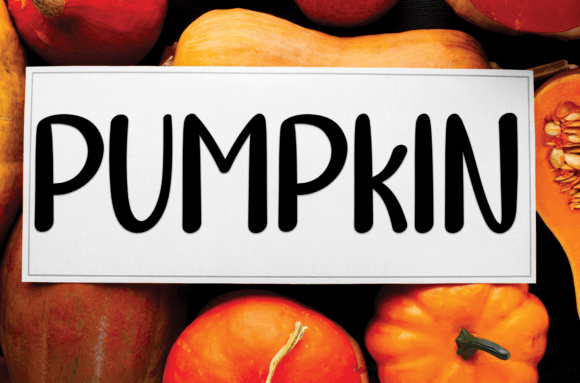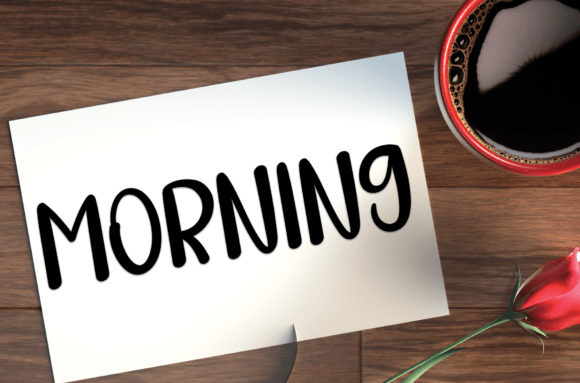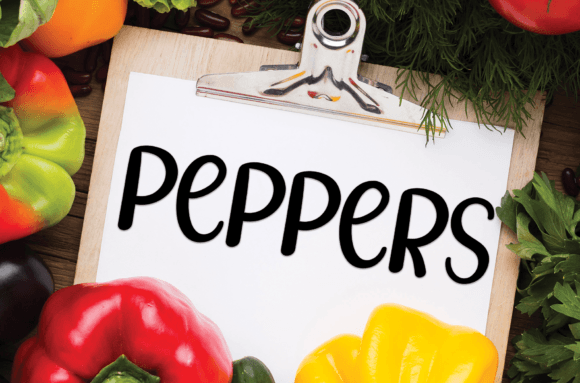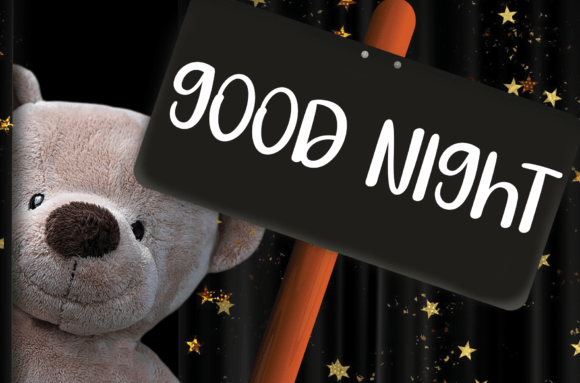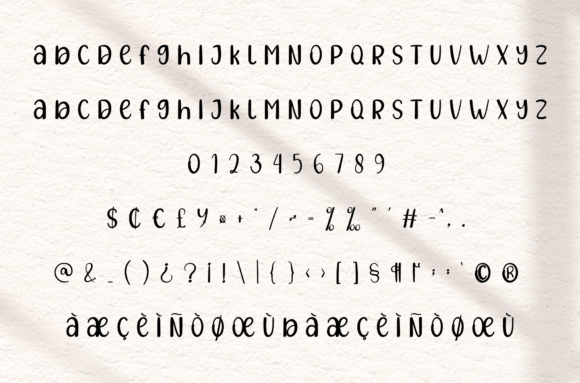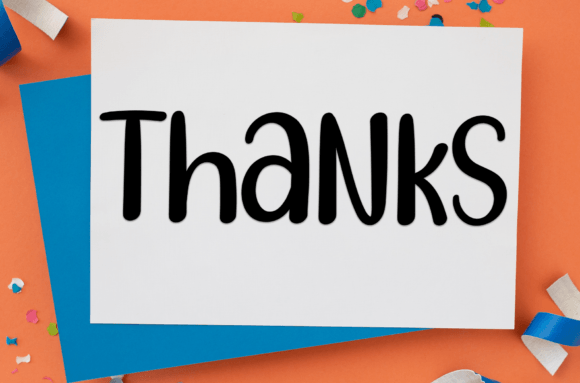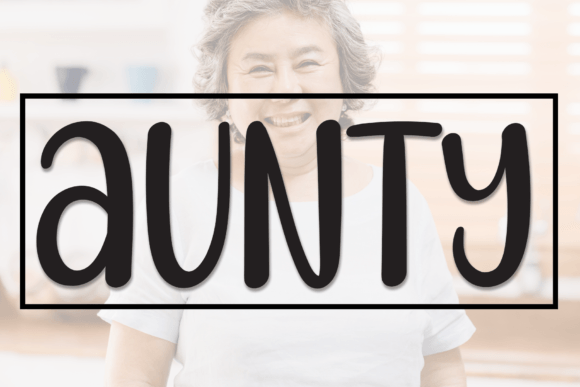
Aunty Font: The Sweet and Friendly Handwritten Font for Your Design Needs
Are you looking for a font that can add a touch of warmth and personality to your designs? Look no further than Aunty Font, a sweet and friendly handwritten font that’s perfect for a variety of creative projects. In this article, we’ll take a closer look at Aunty Font, its features, and how you can use it to elevate your designs.
What is Aunty Font?
Aunty Font is a beautiful, handwritten font that’s designed to bring a sense of fun and playfulness to your designs. With its cute and charming letterforms, Aunty Font is ideal for creating eye-catching wedding invitations, greeting cards, and other paper crafts. The font’s friendly and approachable feel makes it perfect for designers and crafters who want to add a personal touch to their work.
Key Features of Aunty Font
So, what makes Aunty Font so special? Here are some of its key features:
• Handwritten feel: Aunty Font has a genuine, handwritten feel that’s perfect for creating unique and personalized designs.
• Cute and fun: The font’s playful letterforms are sure to add a touch of whimsy and fun to your designs.
• Versatile: Aunty Font can be used for a wide range of design projects, from wedding invitations and greeting cards to posters and social media graphics.
• Easy to read: Despite its playful feel, Aunty Font is easy to read, making it perfect for designs that require a clear and legible font.
Uses for Aunty Font
So, how can you use Aunty Font in your designs? Here are some ideas to get you started:
• Wedding invitations: Aunty Font is perfect for creating beautiful, one-of-a-kind wedding invitations that set the tone for a special day.
• Greeting cards: Add a personal touch to your greeting cards with Aunty Font, which is ideal for birthdays, holidays, and other special occasions.
• Paper crafts: Aunty Font is a great choice for paper crafters who want to add a touch of personality to their projects, from scrapbooking to card making.
• Social media graphics: Use Aunty Font to create eye-catching social media graphics that showcase your brand’s personality.
Tips for Using Aunty Font
Here are some tips for getting the most out of Aunty Font:
• Pair with other fonts: Aunty Font pairs well with other fonts, so don’t be afraid to experiment with different combinations to find the perfect look for your design.
• Use for headings and titles: Aunty Font is perfect for headings and titles, where its playful feel can really shine.
• Experiment with colors: Aunty Font looks great in a variety of colors, so don’t be afraid to experiment with different hues to find the perfect look for your design.
Aunty Font is a sweet and friendly handwritten font that’s perfect for designers and crafters who want to add a touch of personality to their work. With its cute and playful letterforms, Aunty Font is ideal for a wide range of design projects, from wedding invitations and greeting cards to social media graphics and paper crafts. Whether you’re a seasoned designer or just starting out, Aunty Font is a great choice for anyone looking to add a little fun and whimsy to their designs.